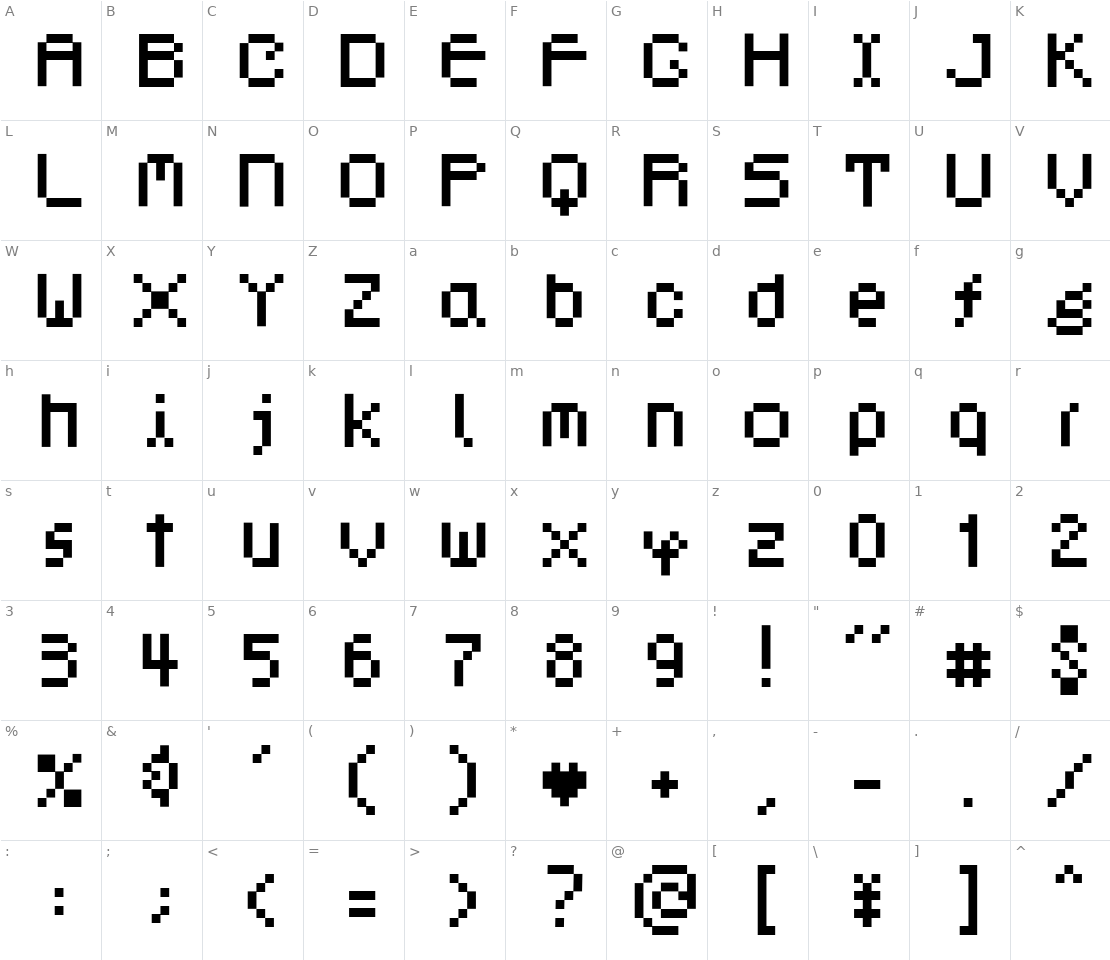
Dotphoria
by Hirano Kaato
Dotphoria is a pixel-based display face from Hirano Kaato with a clean, geometric grid structure that feels more deliberate than nostalgic. The blocky, monospaced letterforms read like output from a carefully designed 8-bit system, staying crisp and legible despite their low-resolution construction. Best for retro gaming projects, digital interfaces, or any context where you want that bitmap aesthetic without the usual roughness.